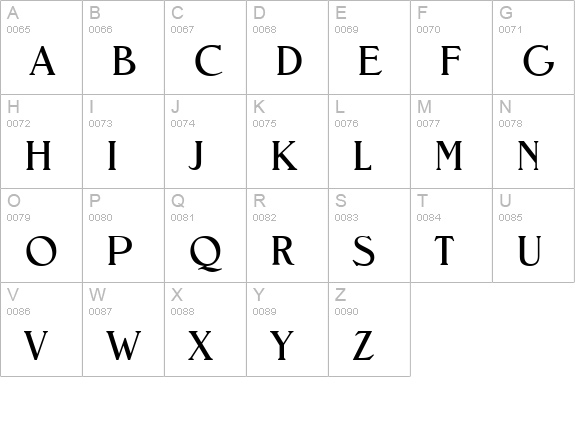
NevadaSerial-Regular is the standard, neutral variant in the NevadaSerial typeface family \xE2\x80\x94 well suited to general body text, paragraphs, and standard typographic work.
NevadaSerial-Regular font is a beautifully crafted typeface that exudes elegance and sophistication. With its clean lines and modern design, this font is perfect for a wide range of projects, from branding to editorial design. Its versatility makes it a great choice for both digital and print applications. What sets NevadaSerial-Regular font apart is not only its aesthetic appeal but also the fact that it is available for free download at FontsMarket.com. This means that you can easily access this high-quality font without any cost, making it a valuable addition to your font collection. Whether you're working on a logo, website, poster, or any other design project, NevadaSerial-Regular font will help you achieve a polished and professional look. Don't miss out on this opportunity to enhance your designs with this fantastic font that is freely available for download.